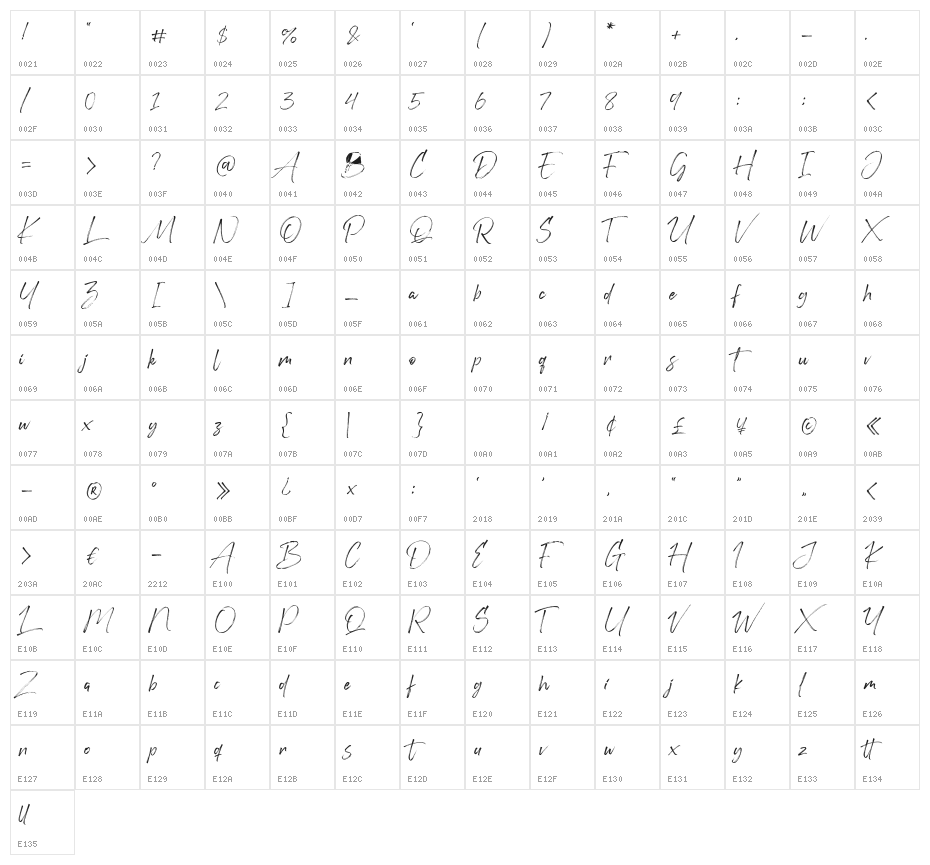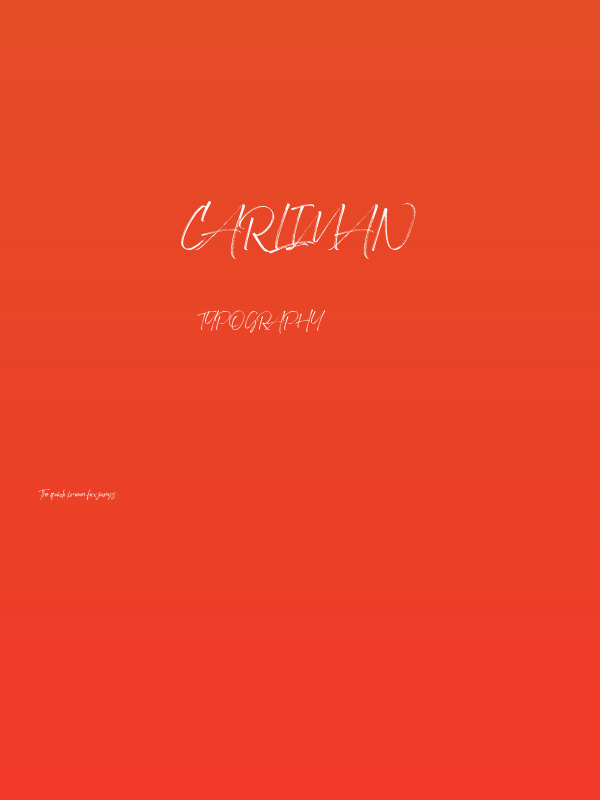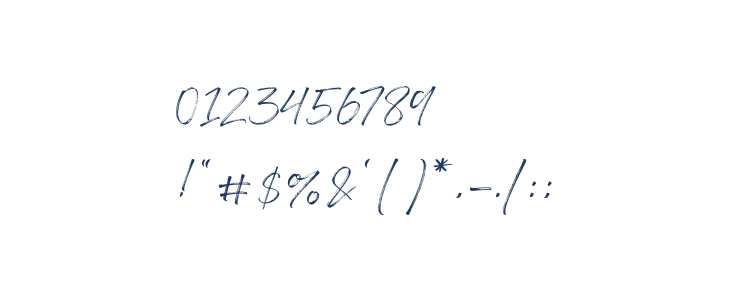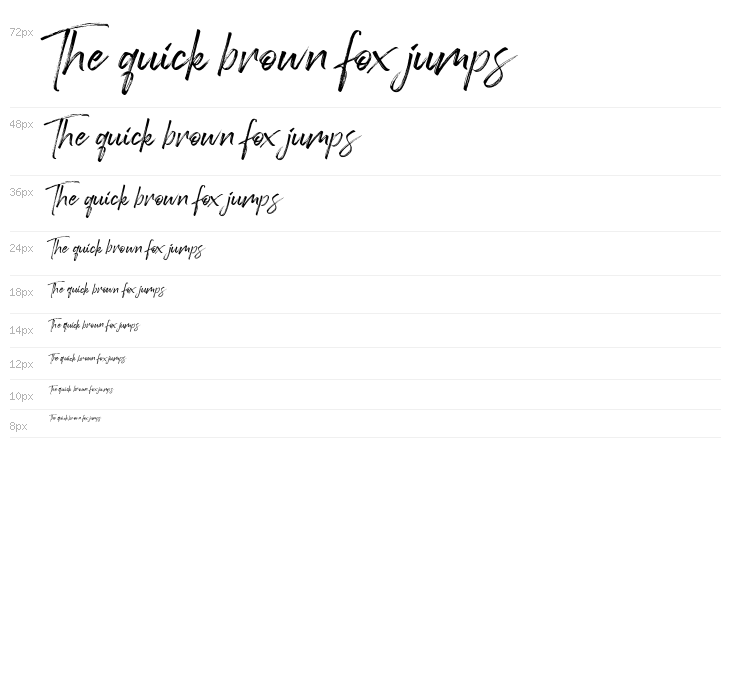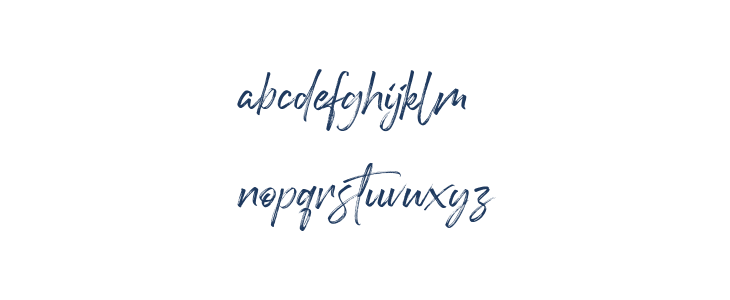
Carliman Font
Carliman Description
This font exudes a dynamic and expressive style, characterized by its fluid, handwritten appearance. The strokes are varied in thickness, giving it a lively and energetic feel. The uppercase letters are bold and sweeping, while the lowercase letters maintain a consistent flow, enhancing readability. The numerals and special characters are crafted with the same attention to detail, ensuring a cohesive look across all elements. This font's unique charm lies in its ability to convey a sense of movement and personality, making it a standout choice for creative projects.
| Proposed Projects | Ideal for branding, invitations, greeting cards, and artistic projects that require a personal touch. |